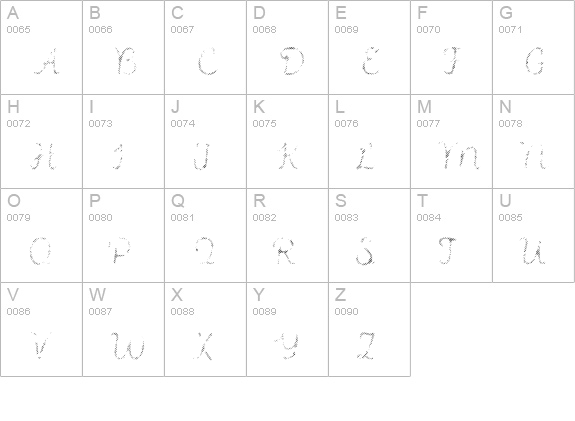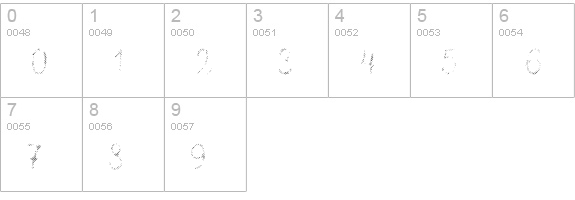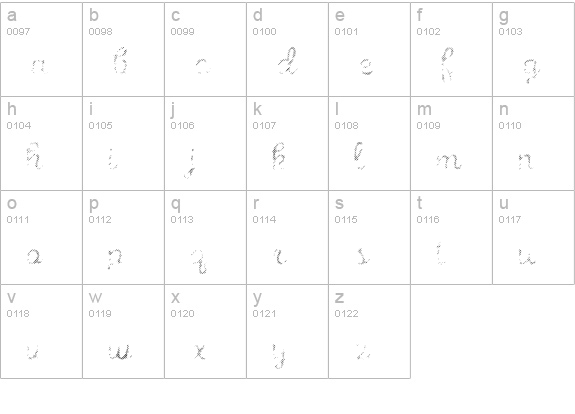
Intro Script B L Font Details
Introducing Intro Script B L font, a stunning and elegant typeface that exudes sophistication and charm. This font is perfect for adding a touch of luxury to your designs, whether for branding, invitations, or other creative projects. With its intricate details and flowing curves, Intro Script B L font will surely captivate your audience and leave a lasting impression. The best part? You can download Intro Script B L font for free at FontsMarket.com! Take advantage of this amazing offer and enhance your designs with this beautiful and versatile font. Don't miss out on the opportunity to elevate your projects with the timeless elegance of Intro Script B L font. Download it today and let your creativity shine!